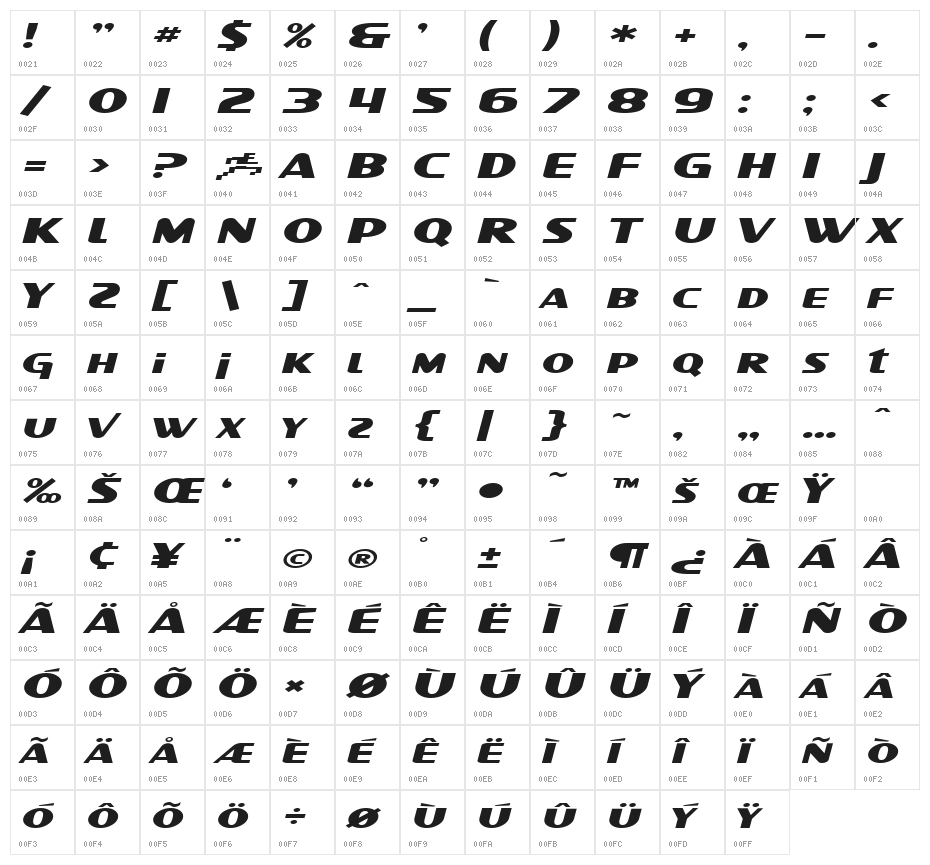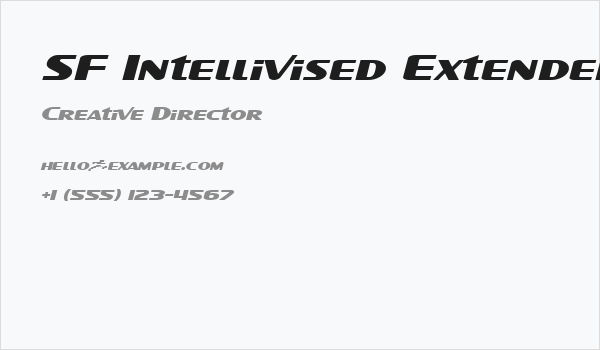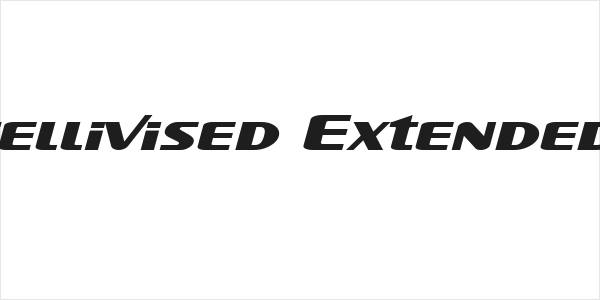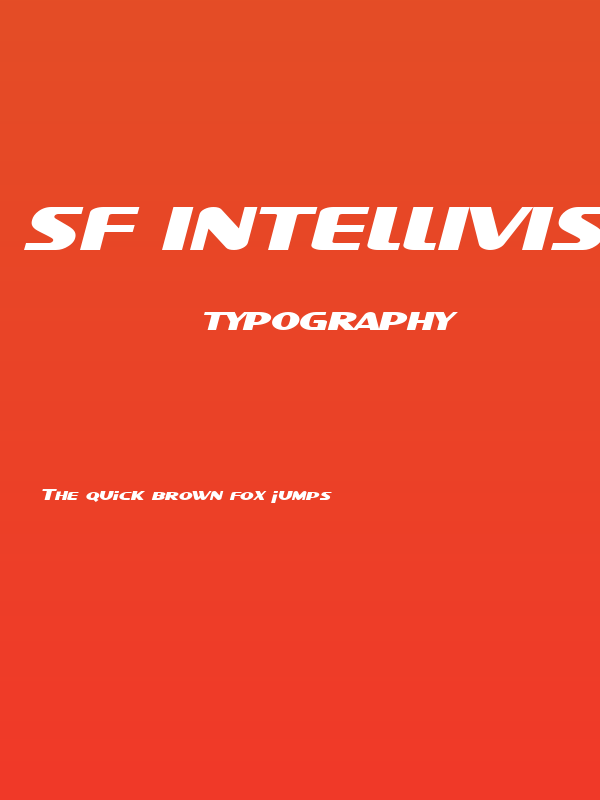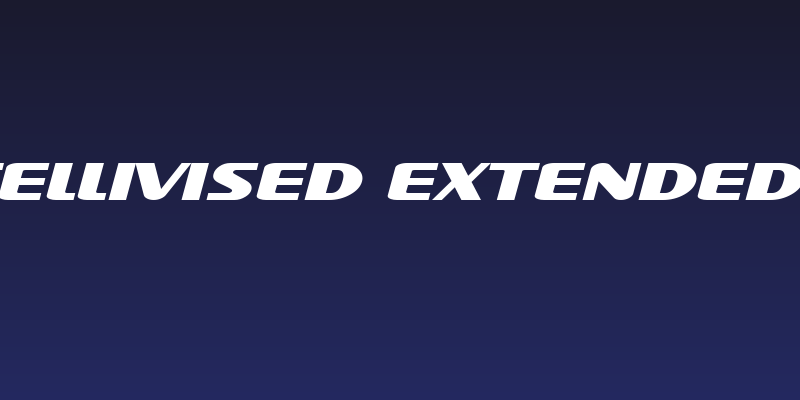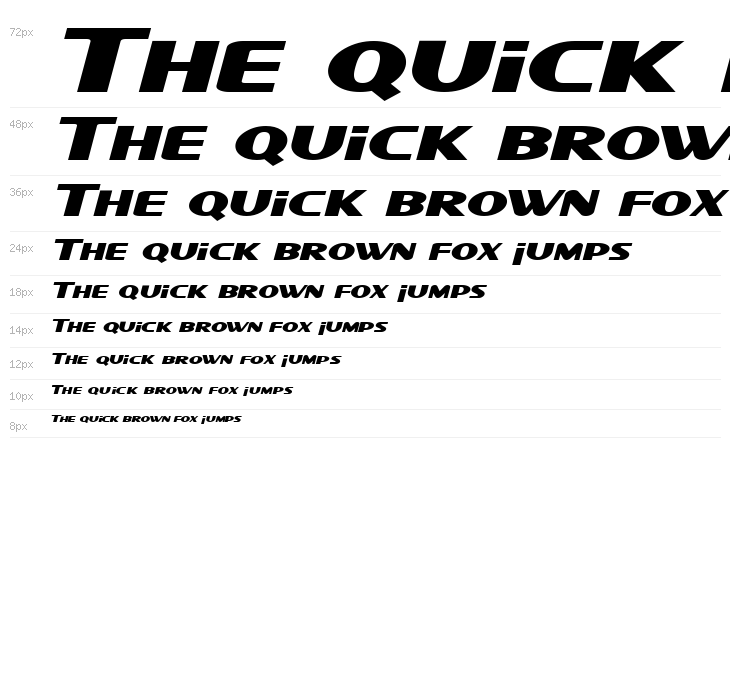
SF Intellivised Extended Italic Font
SF Intellivised Extended Italic Description
This font features a dynamic and modern design with an italicized style that gives it a sense of motion and energy. The characters are bold and extended, providing a strong visual impact. The strokes are smooth and slightly angular, contributing to its contemporary feel. The uppercase and lowercase letters maintain a consistent style, ensuring readability while adding a unique flair. The numerals and special characters are designed to match the overall aesthetic, making this font versatile for various applications.
| Proposed Projects | Ideal for branding, sports team logos, dynamic posters, and modern web design. |